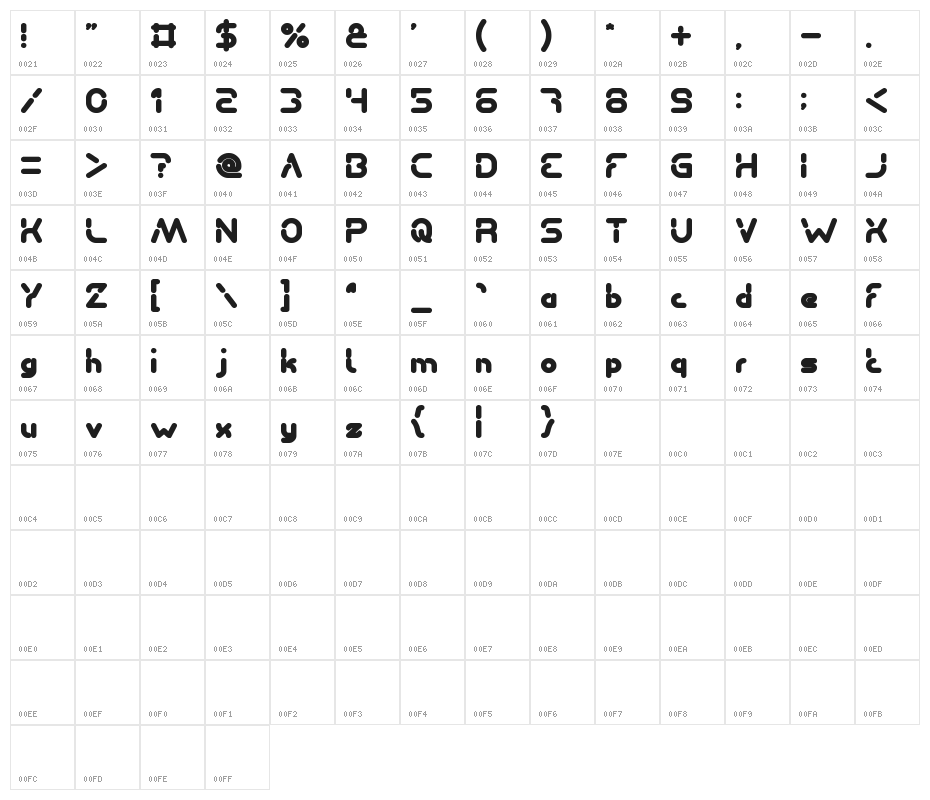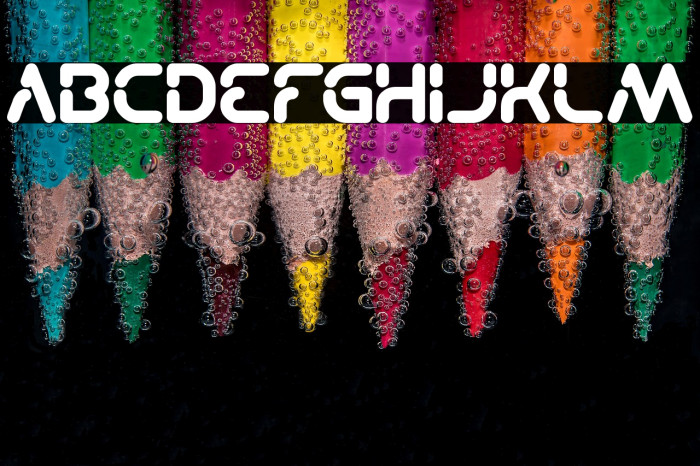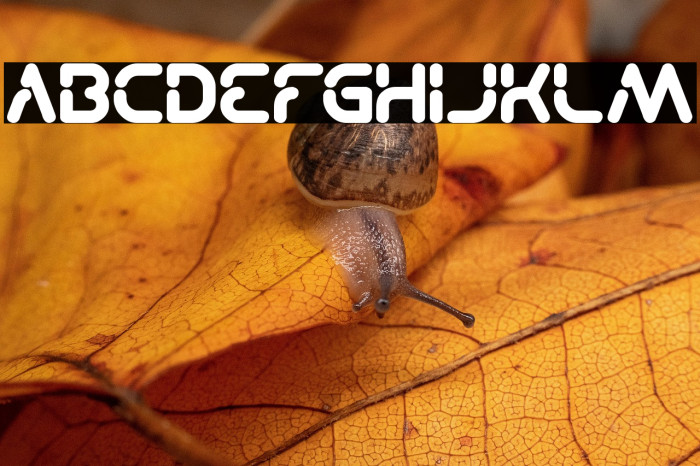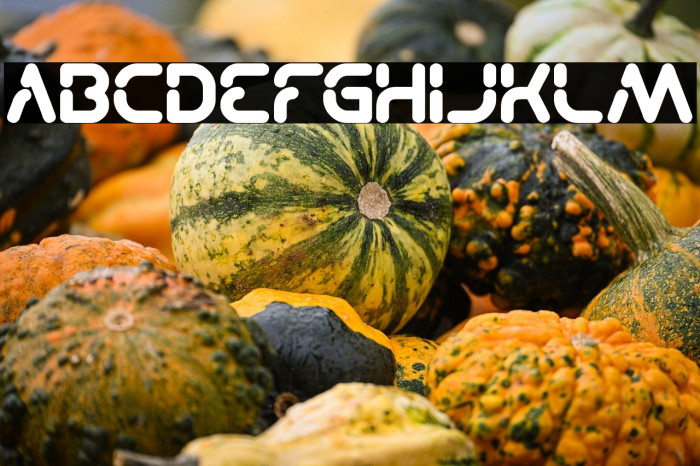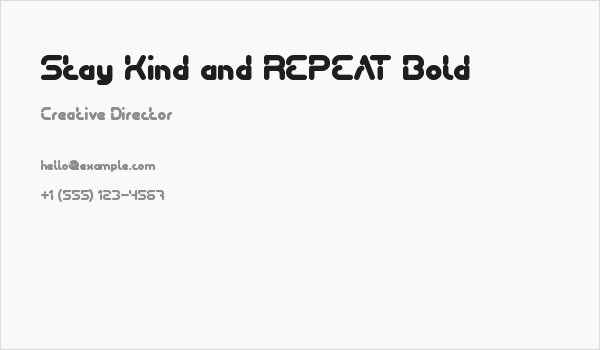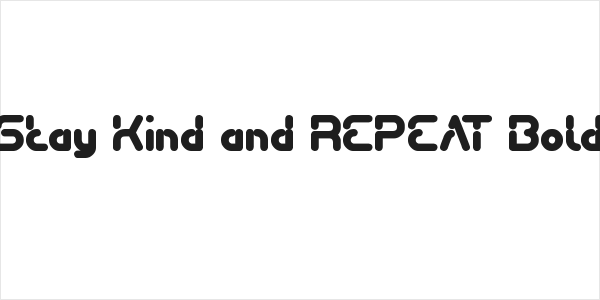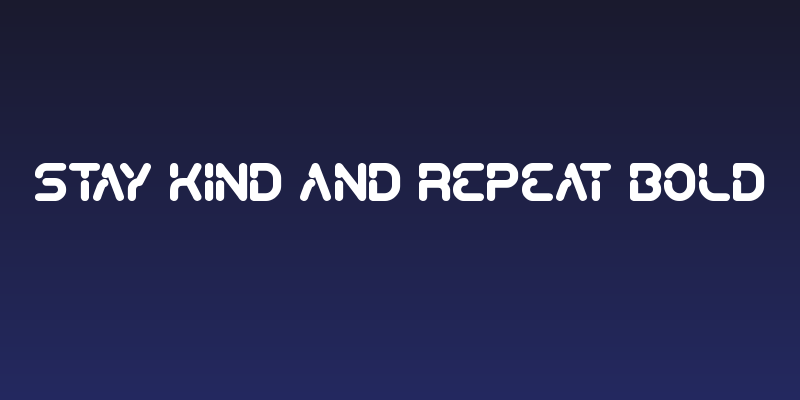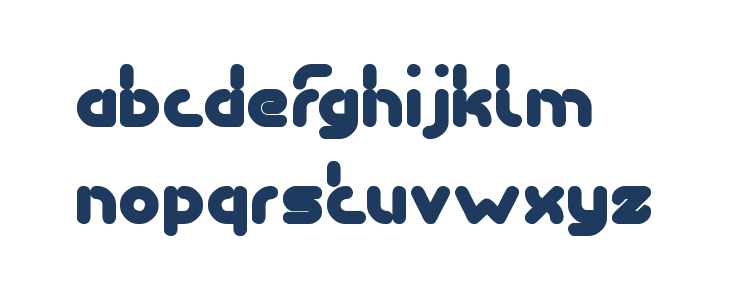
Stay Kind and REPEAT Bold Font
Stay Kind and REPEAT Bold Description
This font features a bold and rounded style with a futuristic and geometric appearance. The characters are constructed with thick strokes and rounded corners, giving them a soft yet sturdy look. The uppercase and lowercase letters maintain a consistent width, contributing to a uniform and cohesive design. The numbers and special characters follow the same design principles, ensuring a harmonious overall appearance. The font's unique style makes it stand out, while its readability remains intact due to the clear and distinct character shapes.
| Proposed Projects | Ideal for branding, logos, posters, and modern digital interfaces where a bold and futuristic look is desired. |